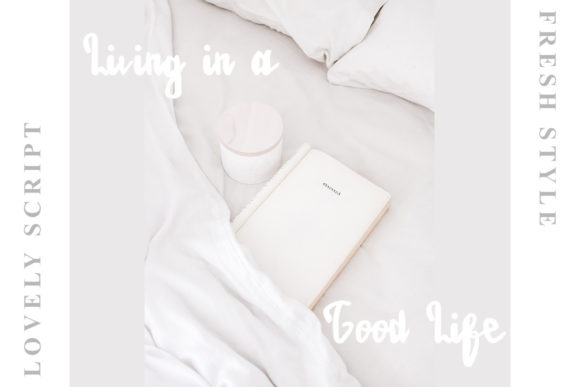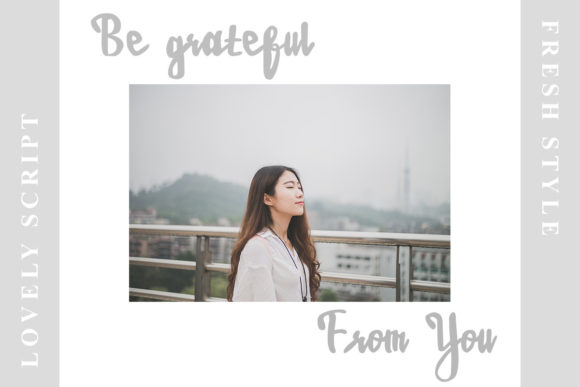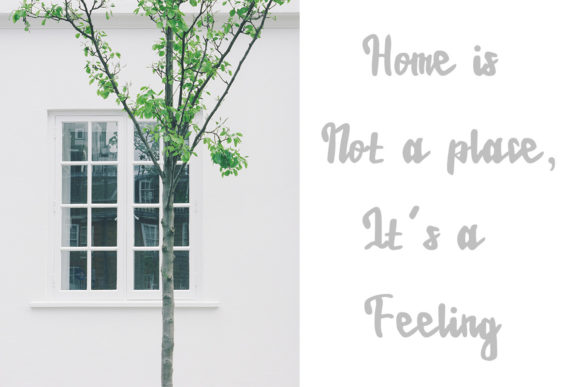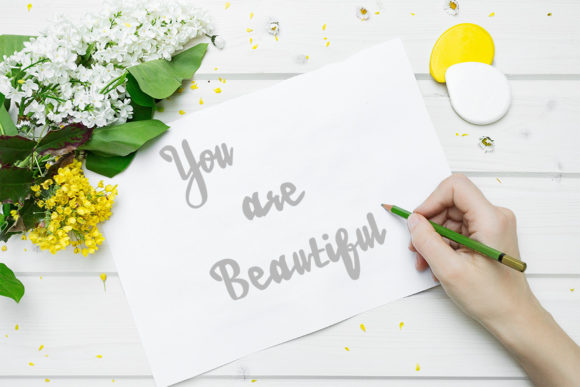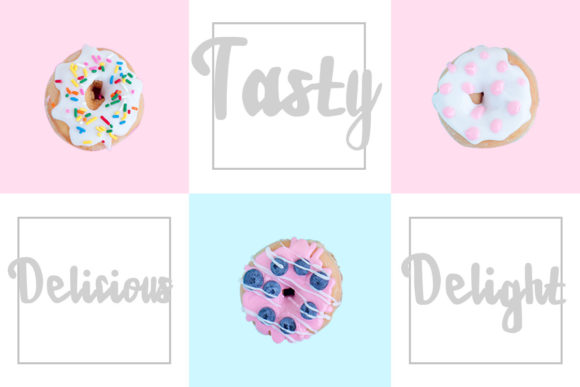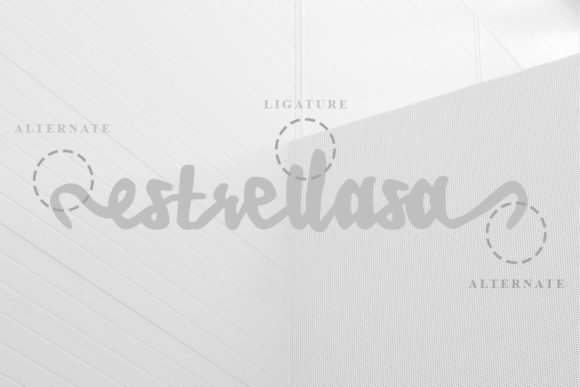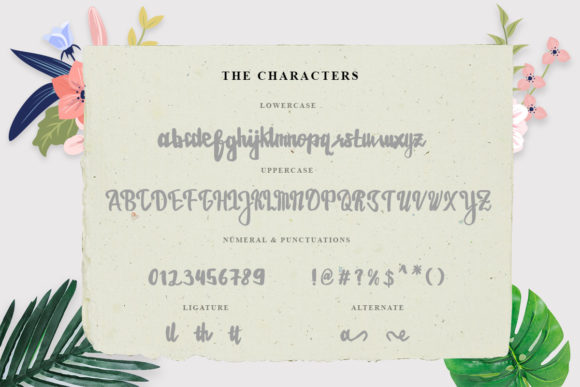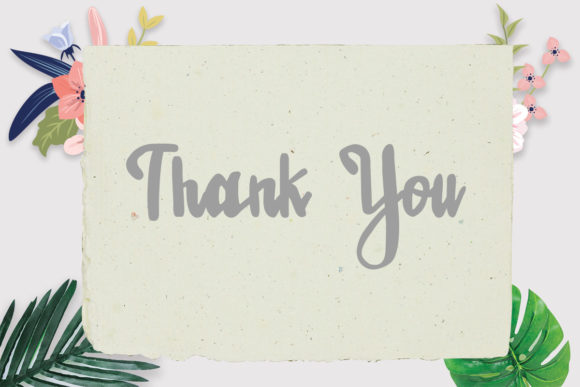
HomeScript FontsEstrellasa Font Script Fonts Estrellasa Font FacebookXPinterestWhatsApp Estrellasa Font Poster 2 Estrellasa Font Poster 3 Estrellasa Font Poster 4 Estrellasa Font Poster 5 Estrellasa Font Poster 6 Estrellasa Font Poster 7 Estrellasa Font Poster 8 Estrellasa Font Poster 9 About Estrellasa Font Estrellasa is a minimalist, casual and modern script with an extraordinary style. Get inspired by its light feel. DOWNLOAD ON CREATIVE FABRICAThis font is sold and delivered by Creative Fabrica. Font Canyon may earn a commission if you buy through this link. People also explored Theodore Font Slushsy Font Xmas Lights Trio Font Goodking Font Happy Forever Font Quadro Font Mia Khalifah Font Beach Font Anything Font 380 0 TagsEstrellasa Font Previous articleBilley FontNext articleDebora Font LEAVE A REPLY Cancel reply Comment: Please enter your comment! Name:* Please enter your name here Email:* You have entered an incorrect email address! Please enter your email address here Website: Save my name, email, and website in this browser for the next time I comment. Personal Use Free Mowgli Personal Use Free Read more about this font Concrete Wall Personal Use Free Read more about this font Droid Personal Use Free Read more about this font Farmgarden Personal Use Free Read more about this font BLOG Free Fonts Risk: Why Free Fonts Can Be Dangerous for Designers Free Fonts Risk: Why Free Fonts Can Be Dangerous for Designers Using free fonts is a common practice in web and graphic design. However, the... How to Install and Use Fonts on Windows, macOS, and Web Projects Where to Buy American Fonts Online in 2024 Transform Your Website: Elevate Your Typography with 7 Best Web Font Generators